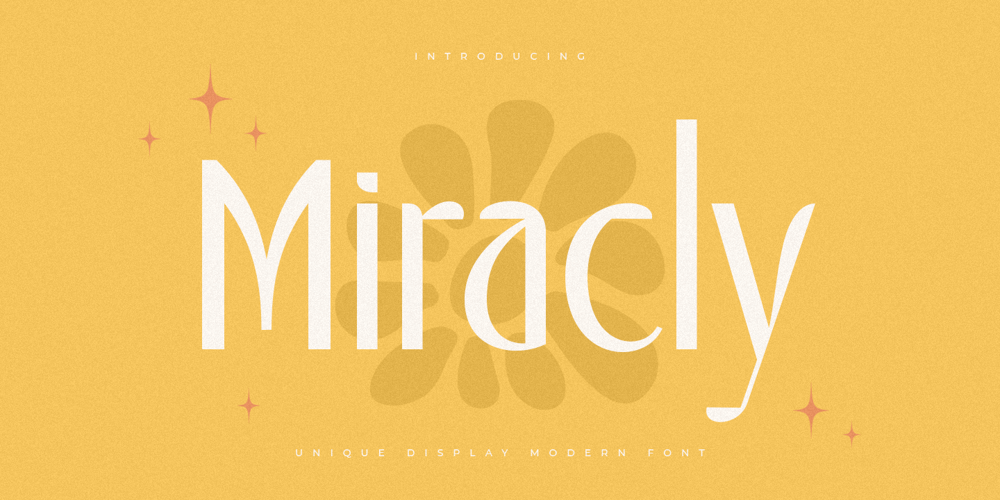
Miracly Font Family was designed by Zamroni Hamzah and published by Sensatype Studio. Miracly contains 1 styles and family package options. Mager is a A Modern Display serif font for Vintage, classic, and retro branding needs.Based on our experience as a graphic designer who works for a lot of companies. This is perfect for BRANDING and LOGO DESIGN. You will get vintage, classic, and certainly unique logos with this font.Mager is also included full set of: uppercase letters multilingual symbols numerals punctuation Wish you enjoy our font. ๐